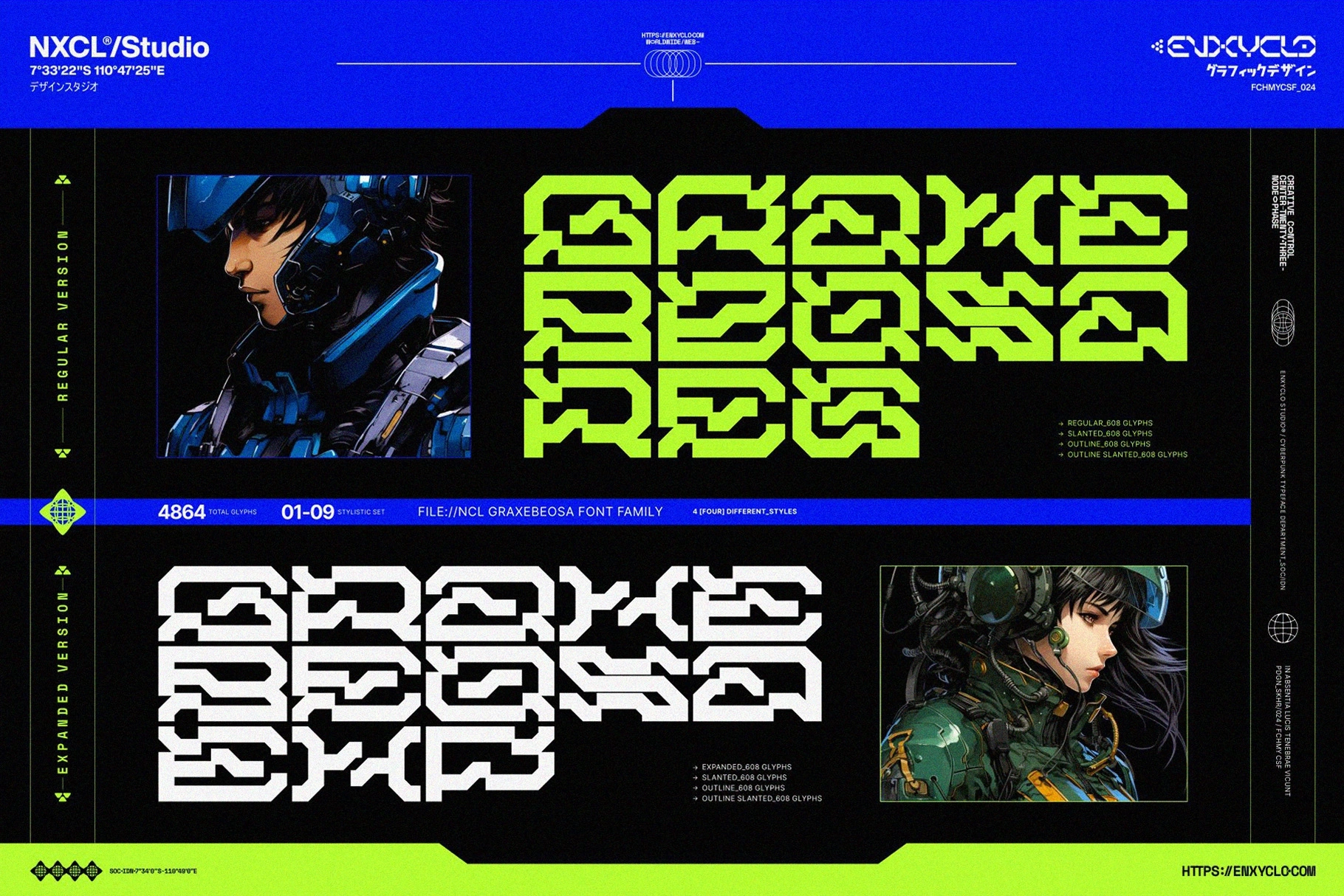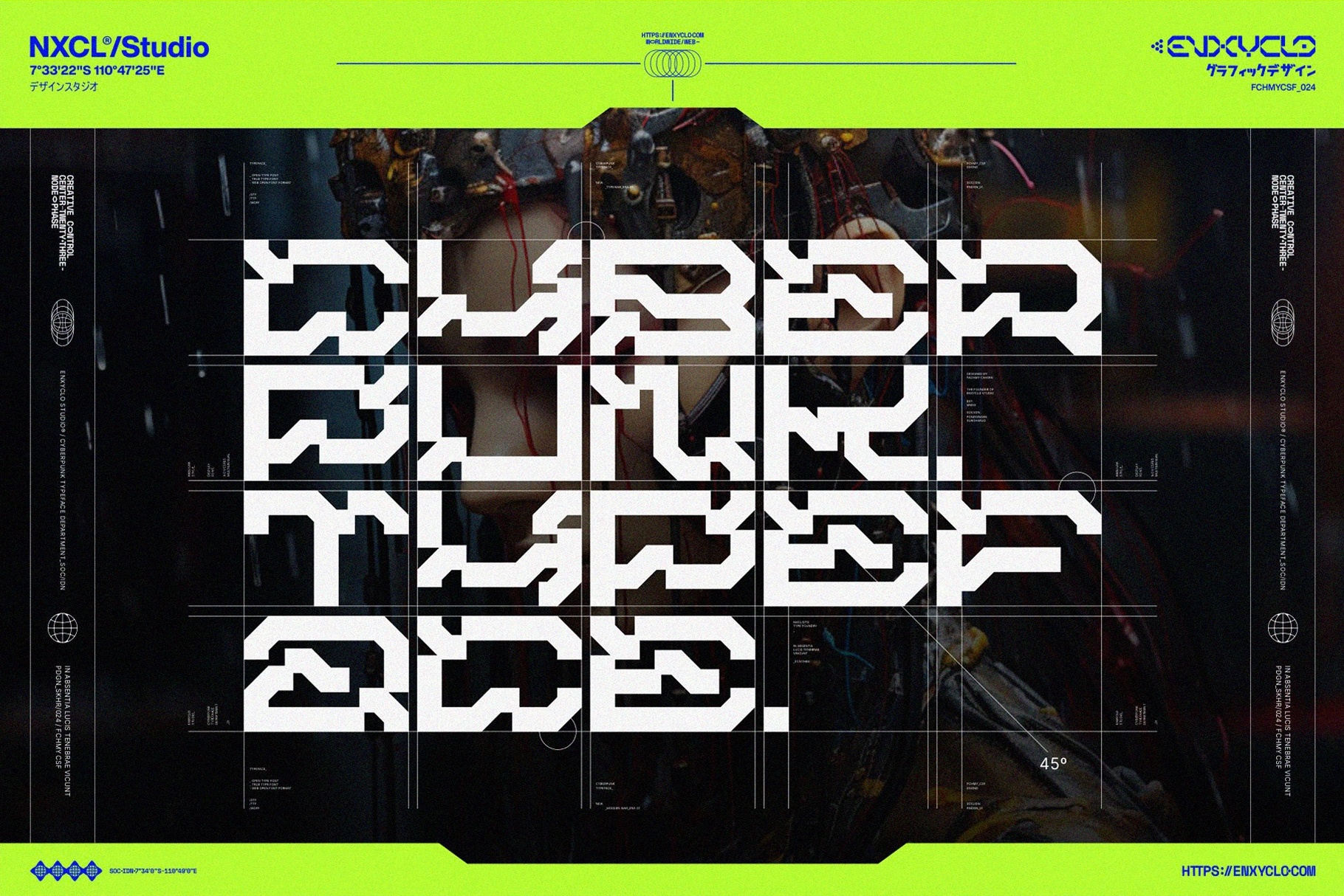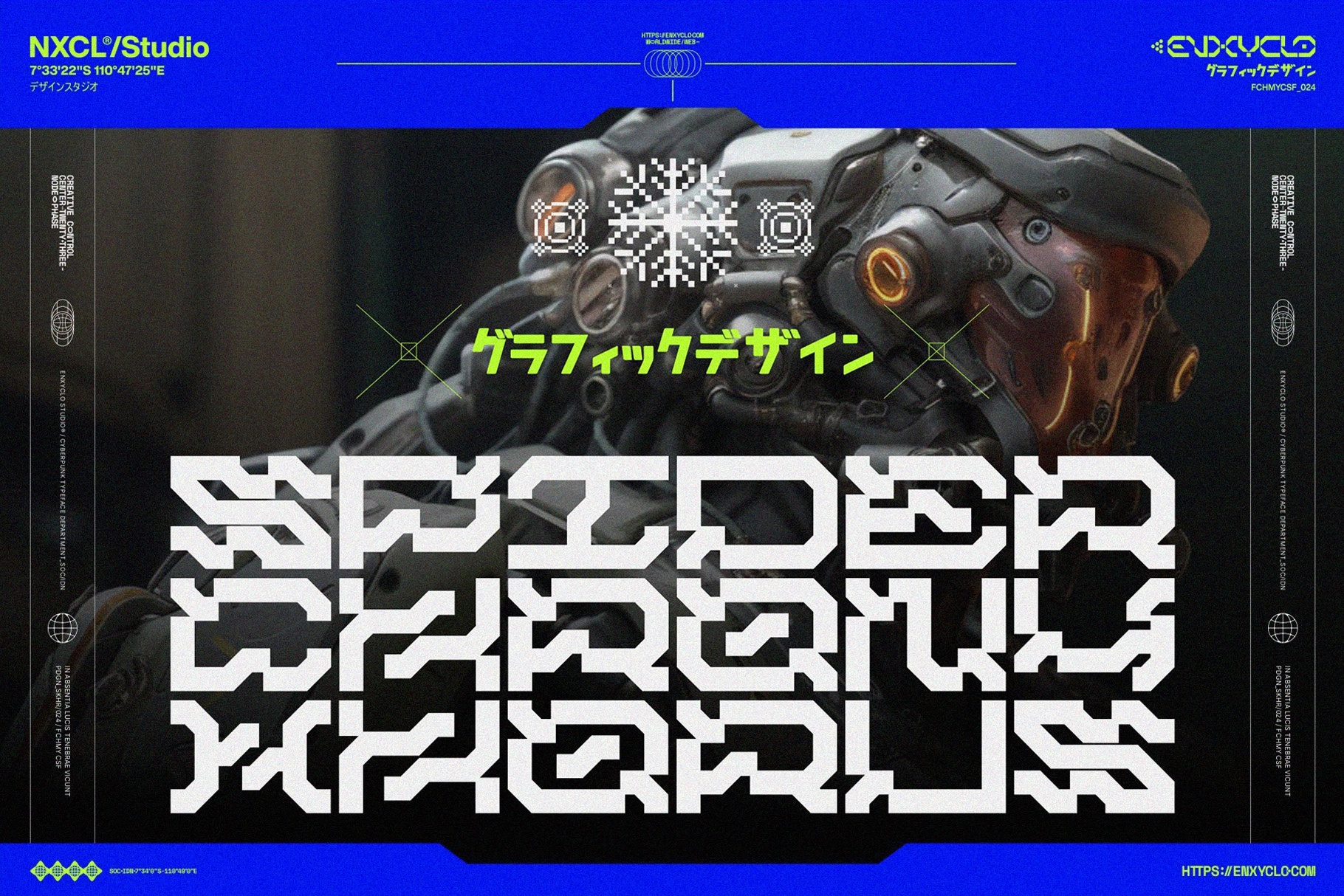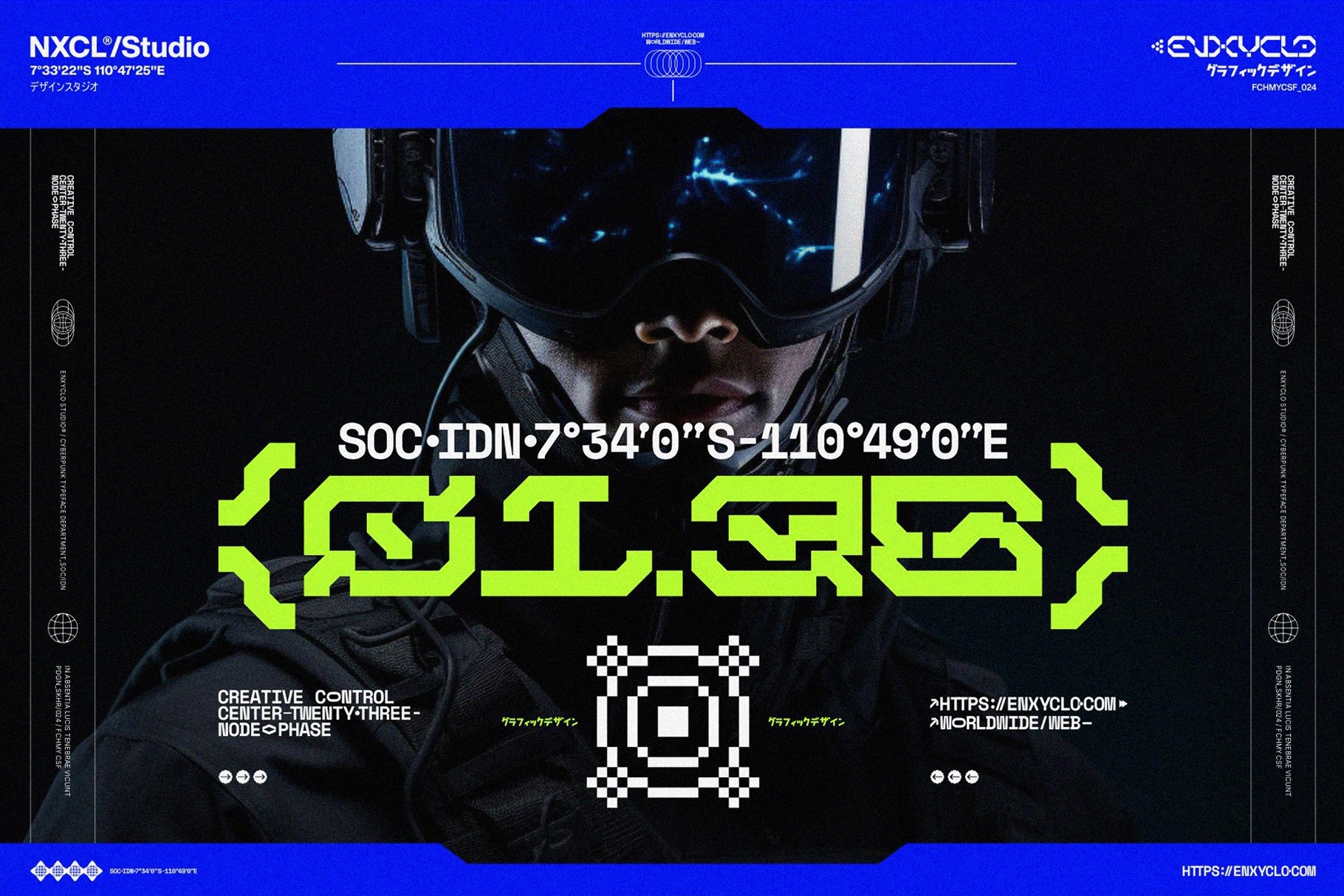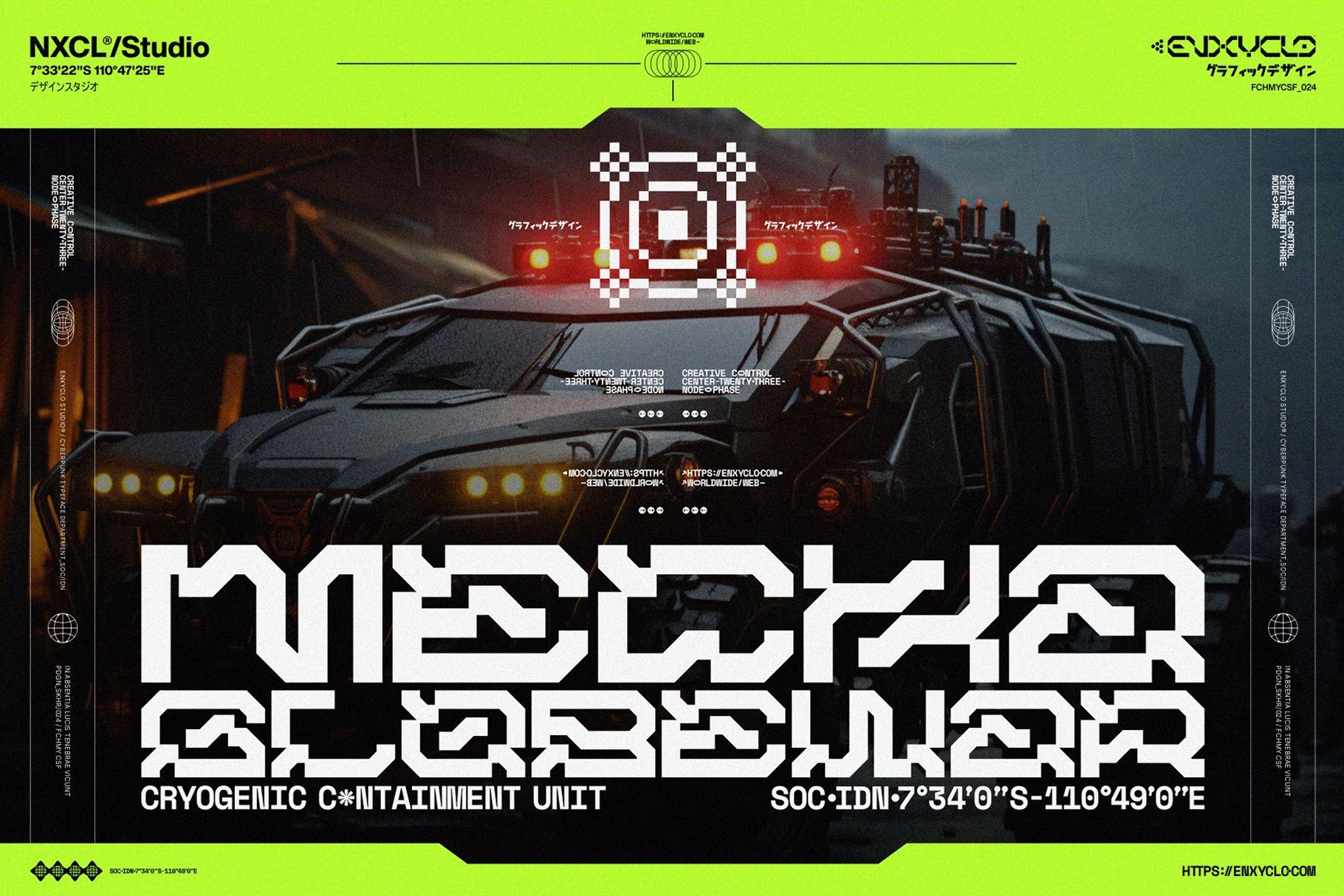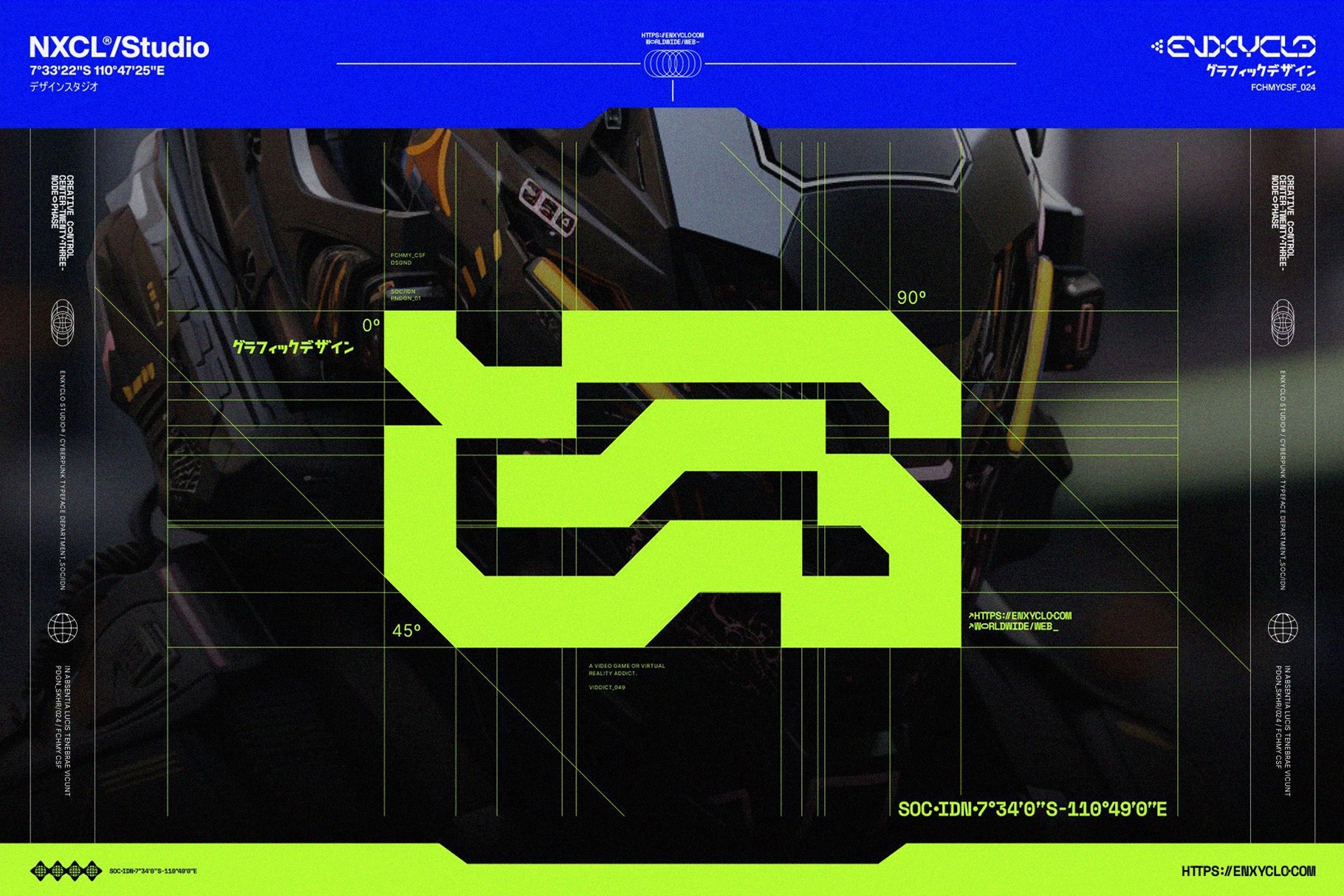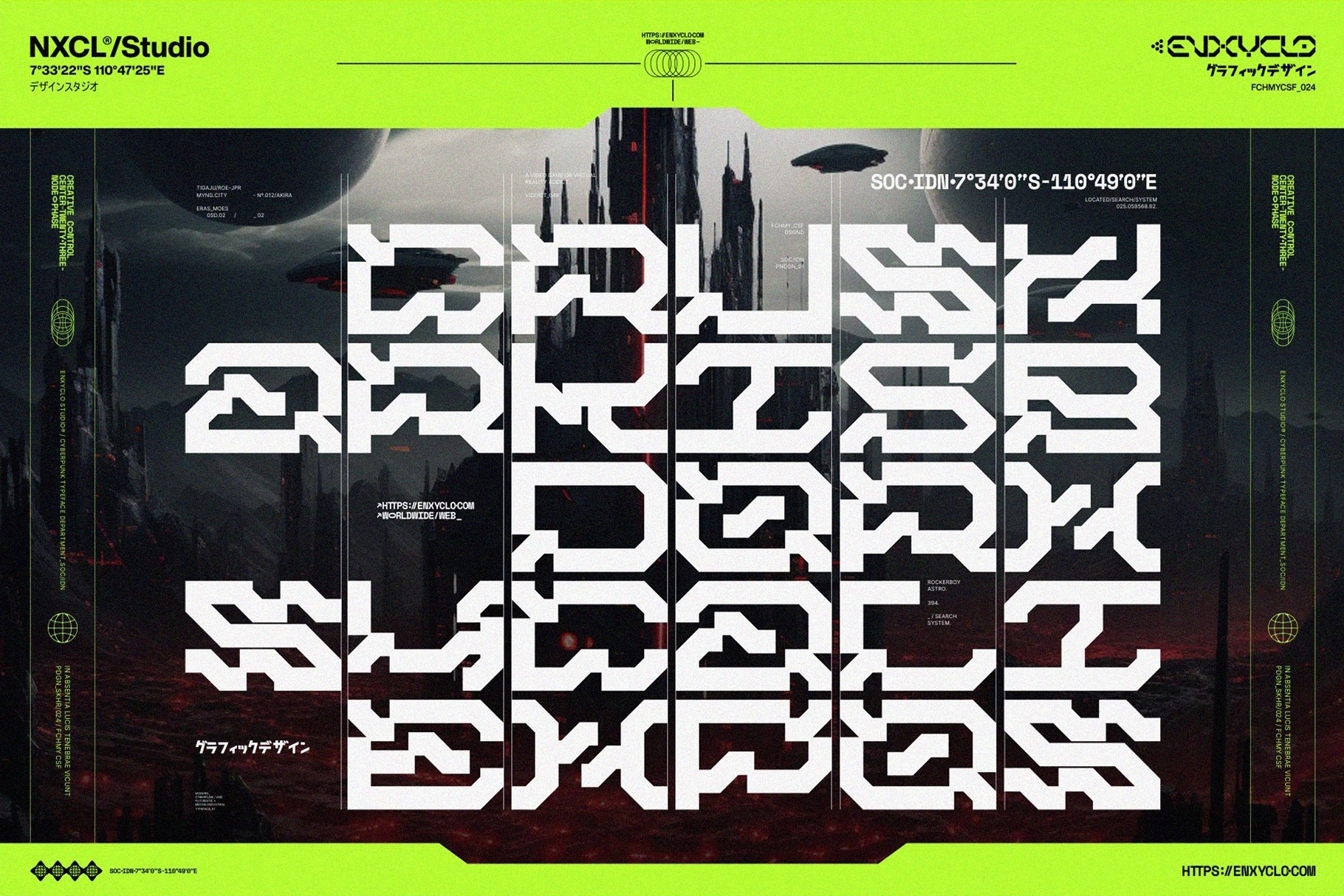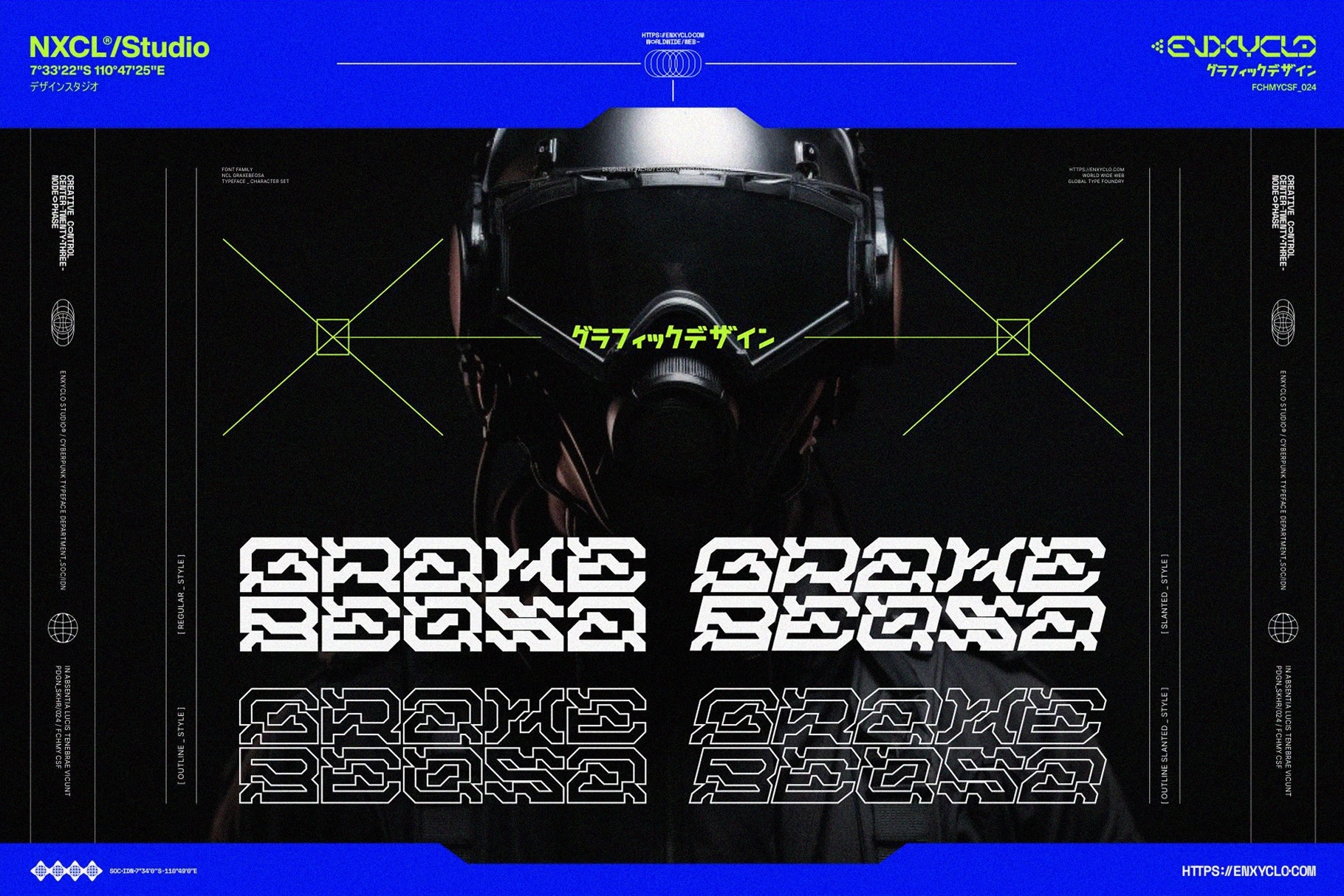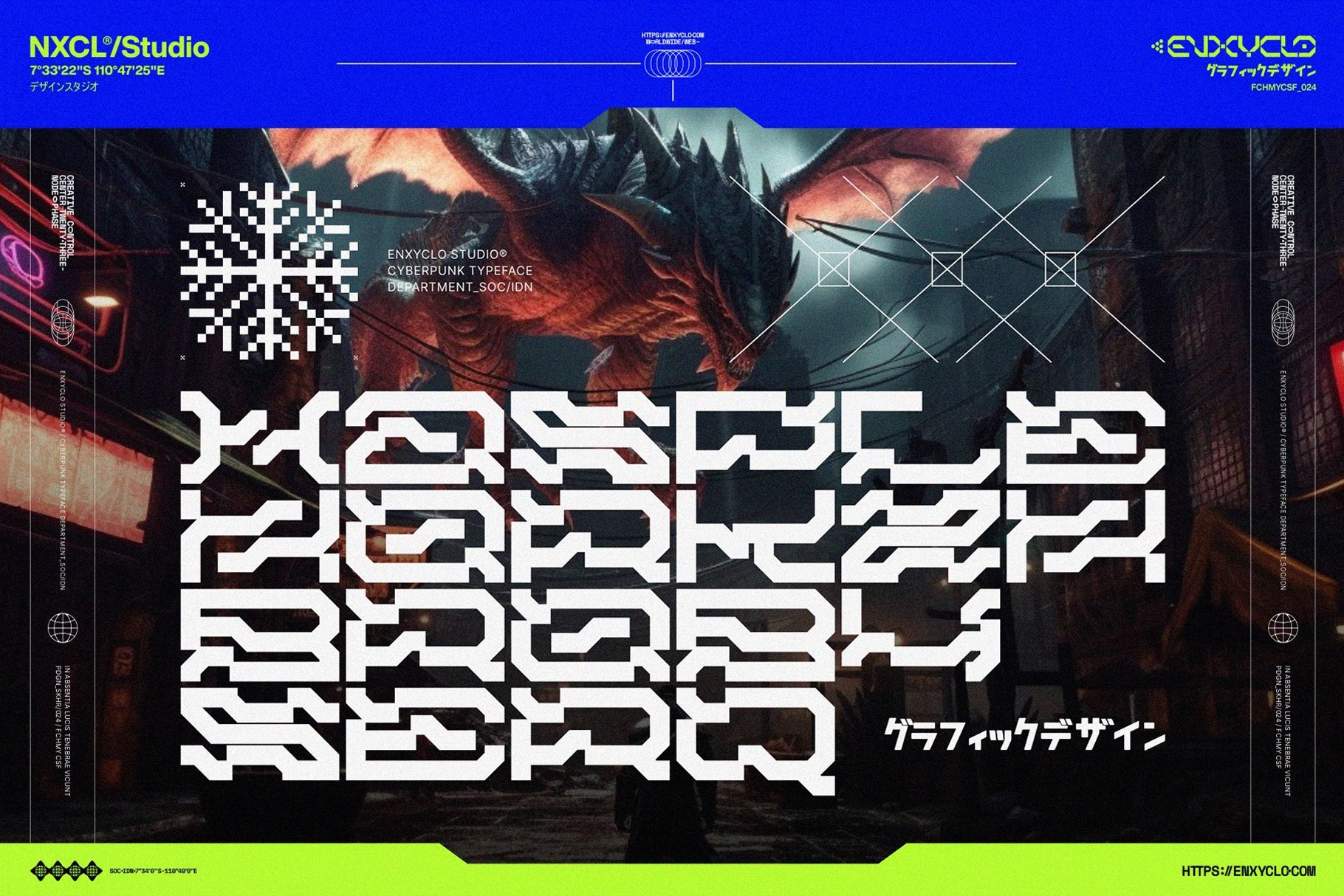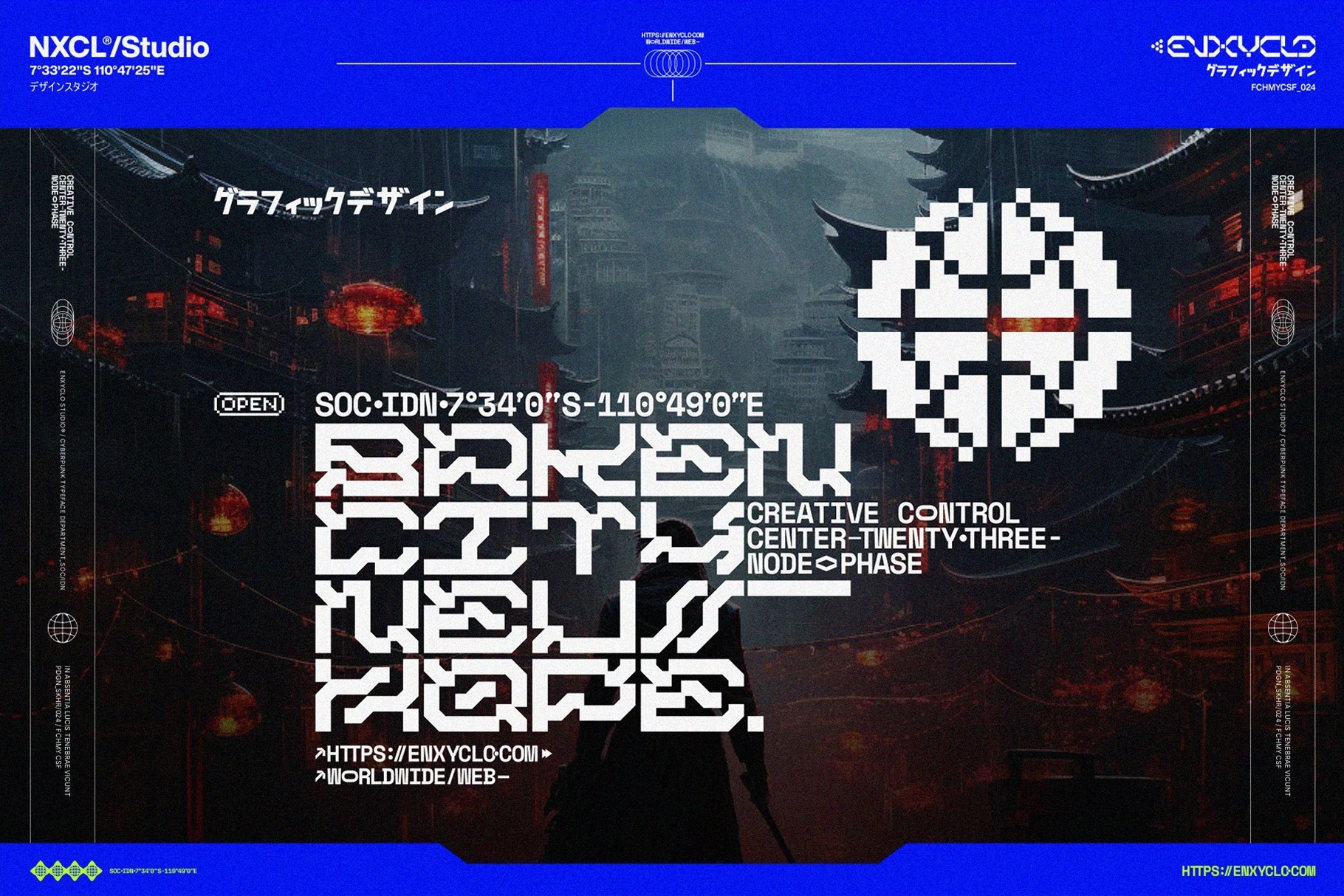
NCL Graxe Beosa - Cyberpunk Display Font Family
NCL Graxe Beosa - Cyberpunk Display Font Family is a cutting-edge futuristic typeface inspired by cyberpunk, techno, and mecha aesthetics. Built with sharp geometry and intricate modular forms, it delivers a bold digital presence that instantly captures attention in high-impact designs.
This font family is perfect for sci-fi branding, gaming visuals, posters, tech interfaces, logos, and futuristic layouts. With its dynamic structure and advanced stylistic sets, Graxe Beosa allows you to create visually complex and innovative typography that feels straight out of a cybernetic future.
- NCL Graxebeosa Regular, Slanted, Wide, Wide Slanted
- NCL Graxebeosa Outline, Outline Slanted, Wide Outline, Wide Outline Slanted
- 9 Stylistic Sets for extended customization
- Uppercase & lowercase characters
- Futuristic cyberpunk, techno, and mecha-inspired design